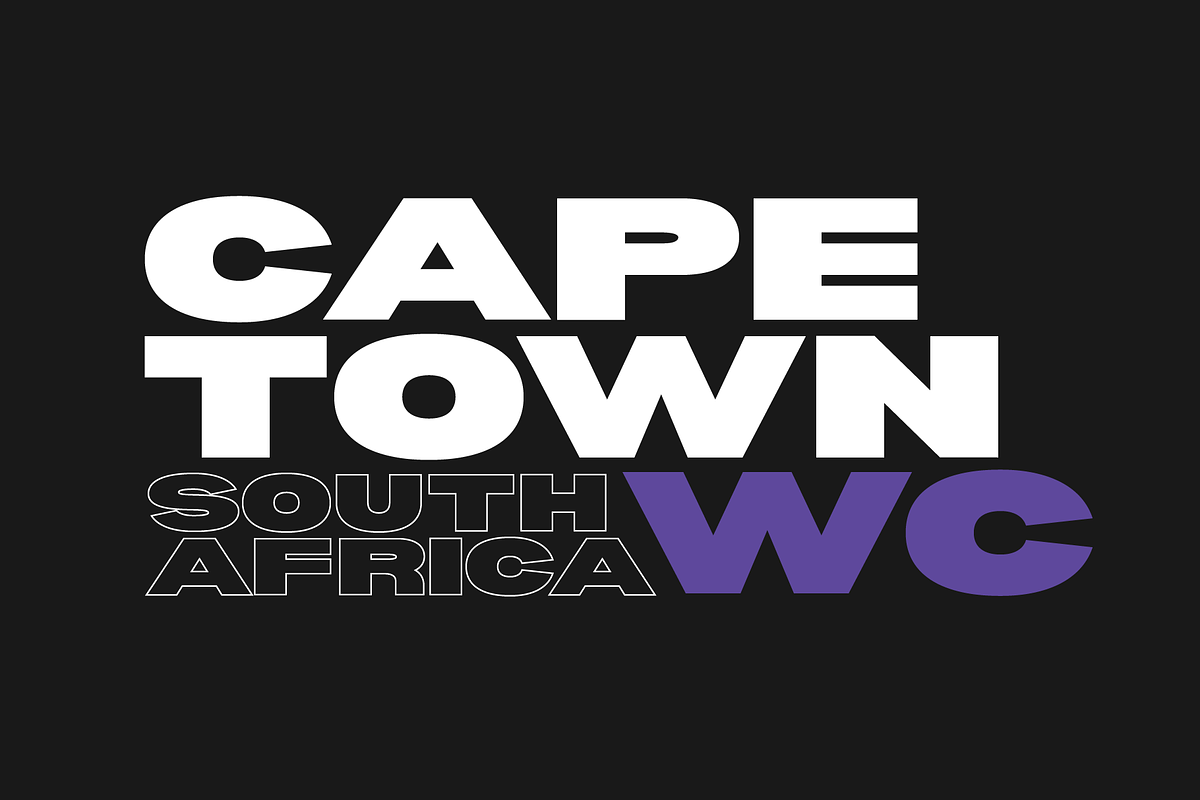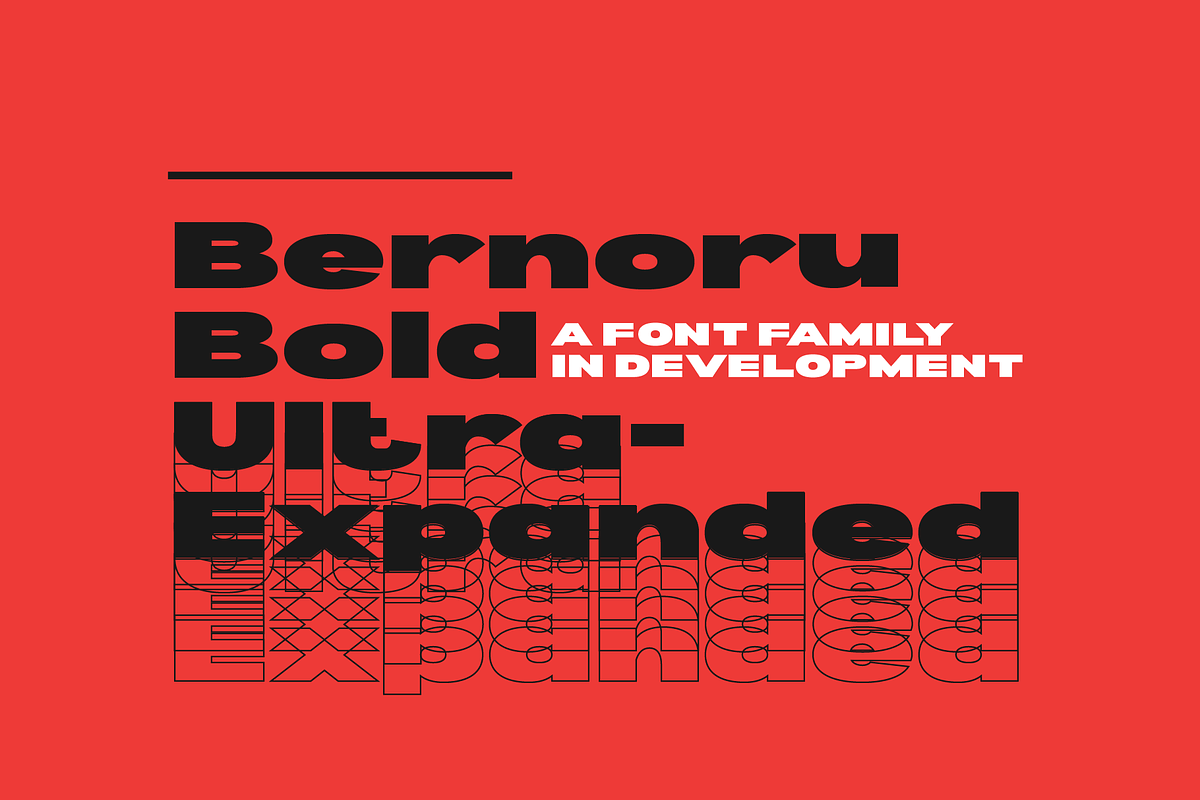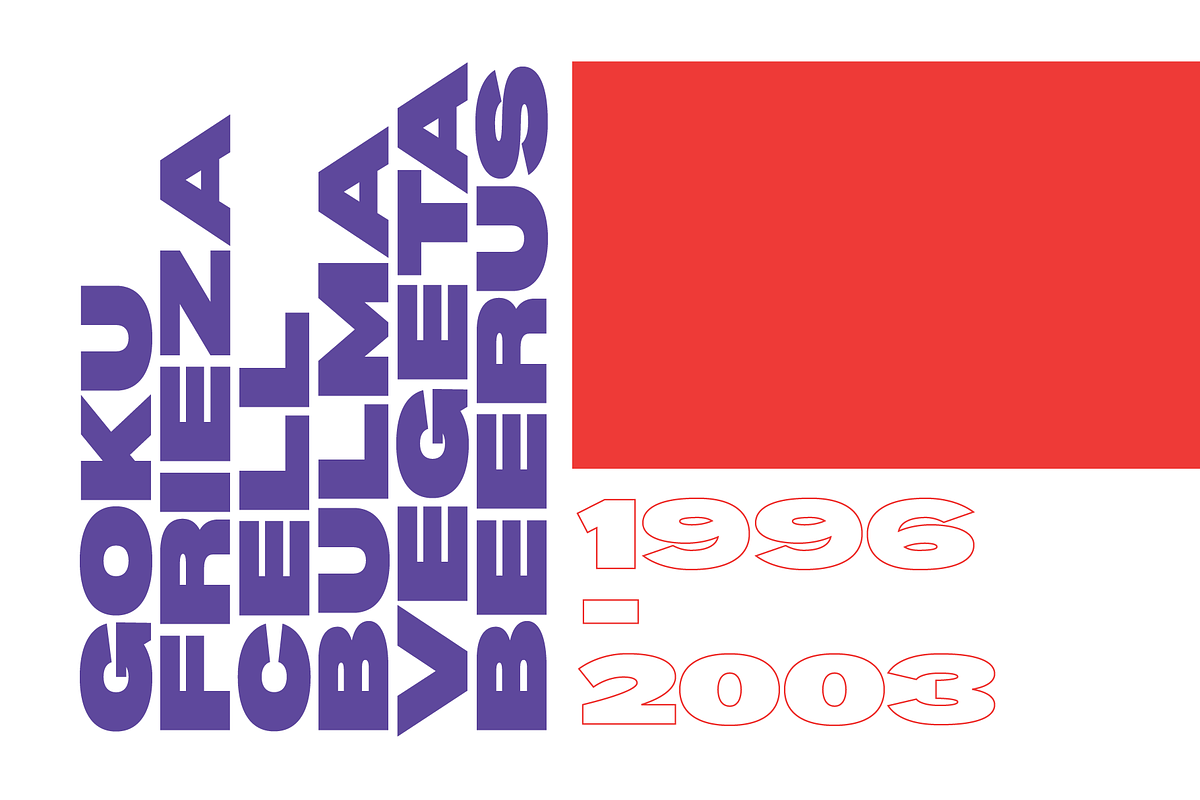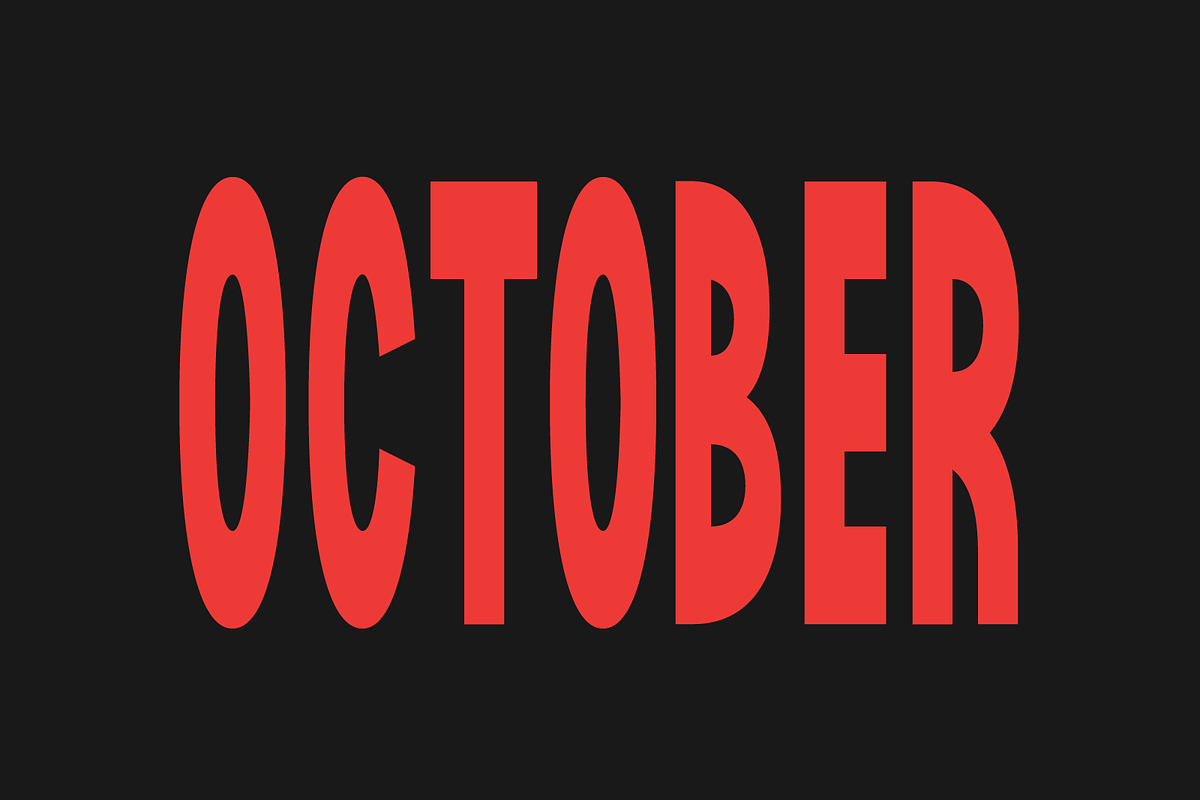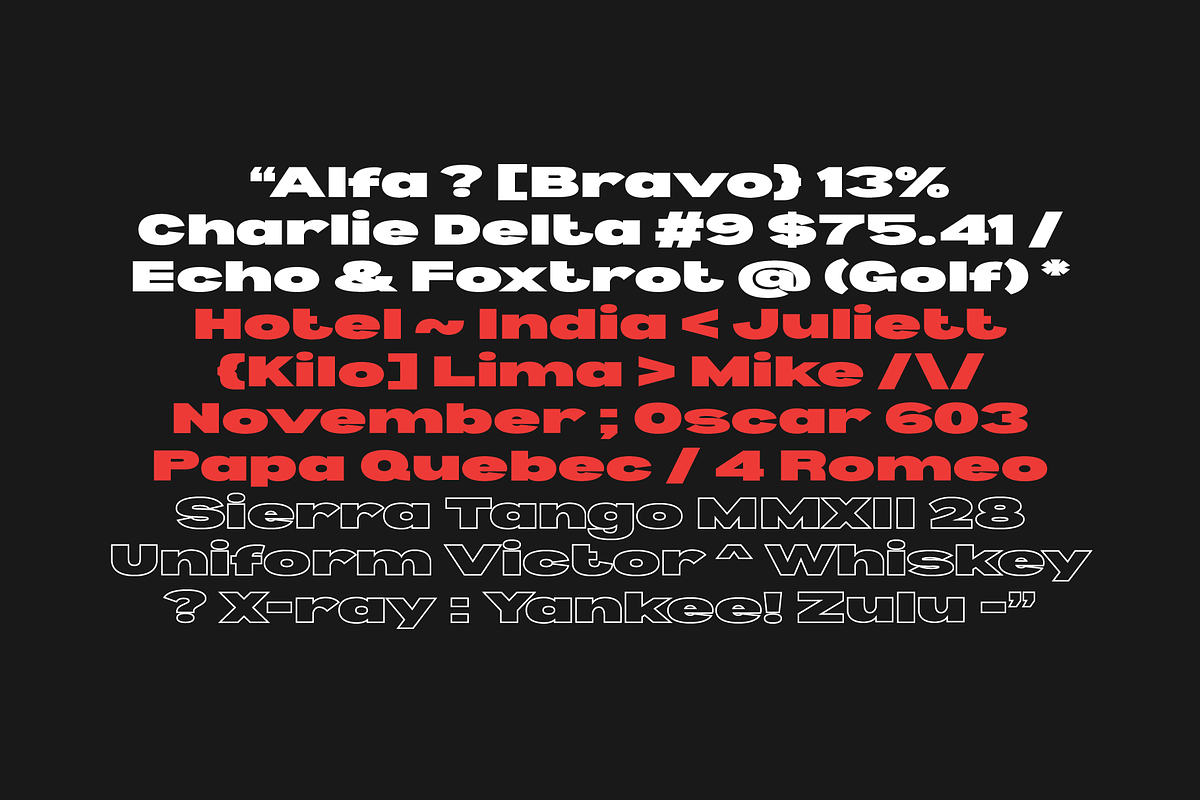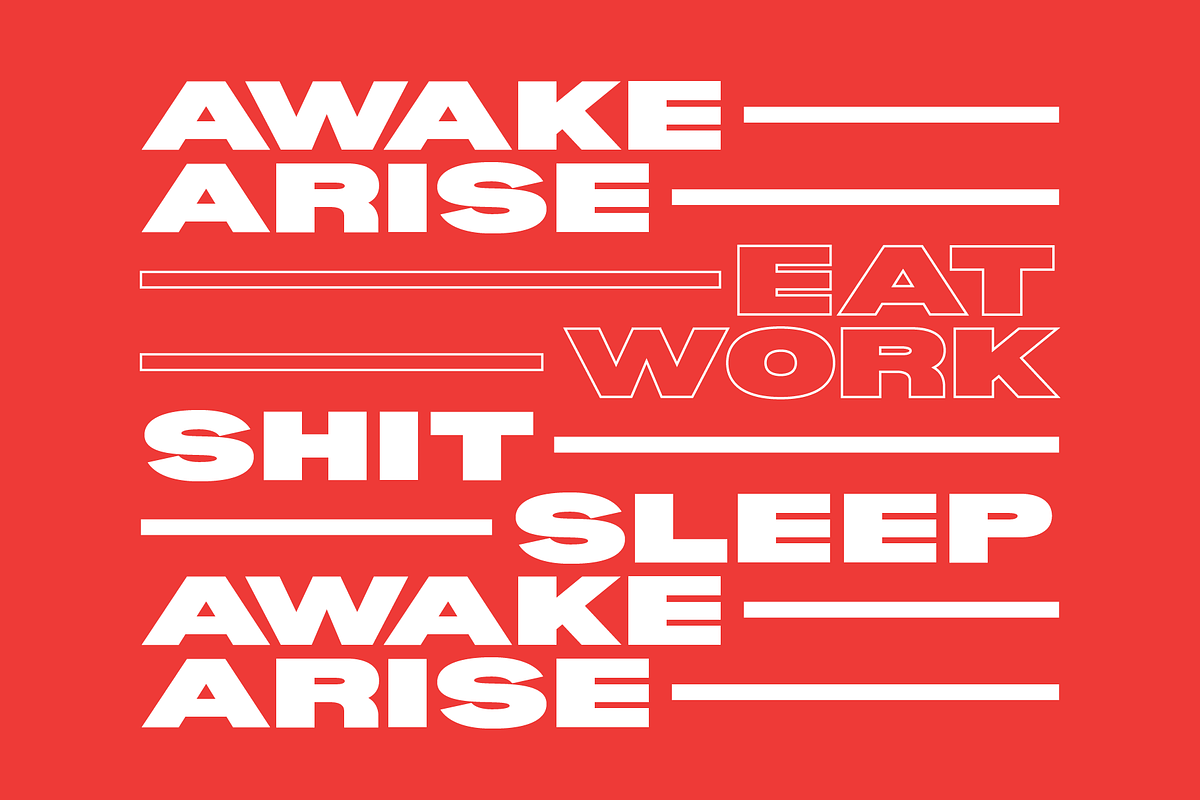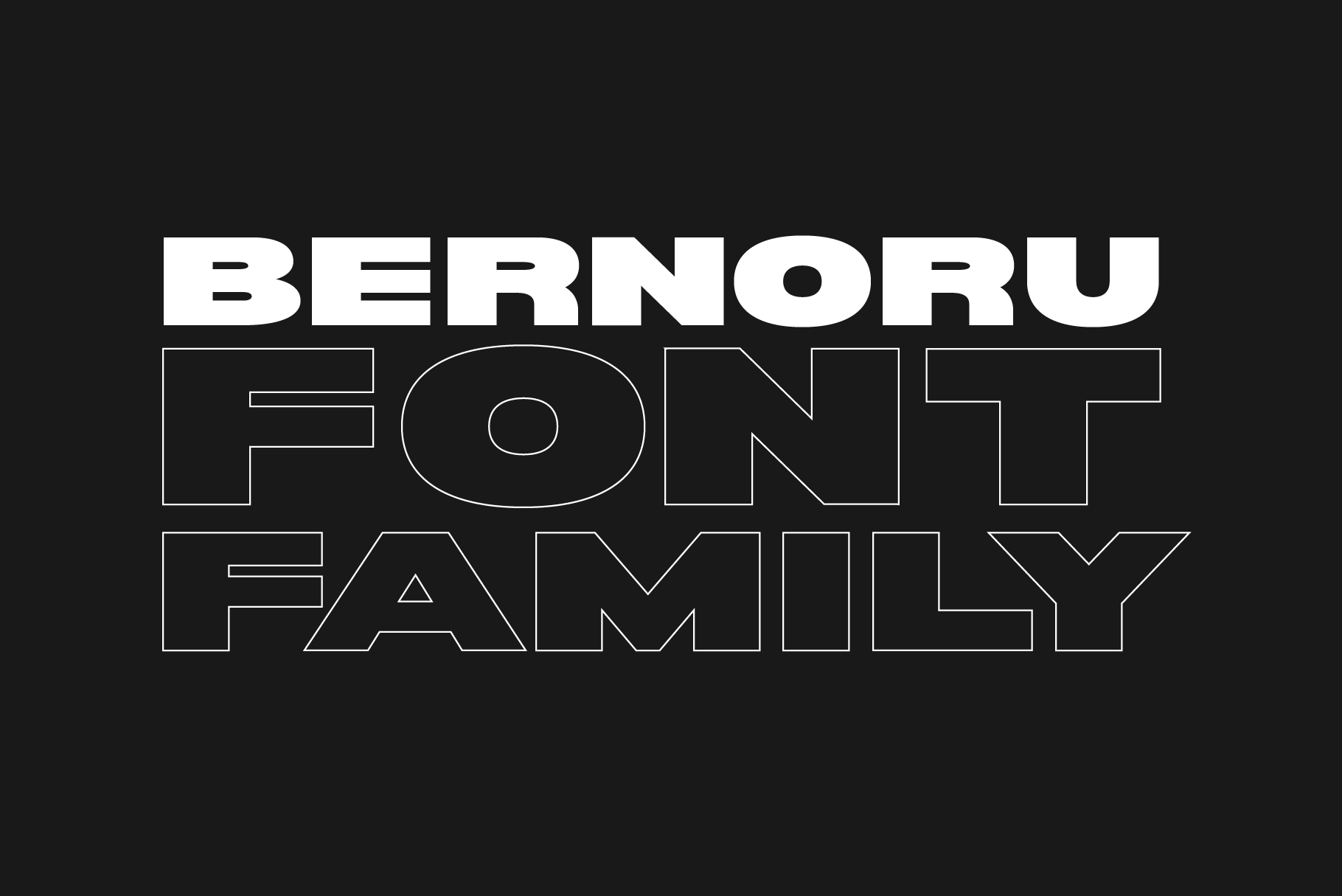
Bernoru Sans Font Family
Bernoru Sans is a bold, eye catching display typeface perfect for posters, headlines and branding. The font is currently being developed with more weight and features to be added. Currently 6 widths, see roadmap below for future features to come.
v0.108 Features
- Now including Latin characters (ÁÂÄÀÅÃÇÉÊËÈÍÎÏÌÑÓÔÖÒÕÚÛÜÙẂŴẄẀÝŶŸỲáâäàåãçéêëèíîïìñóôöòõúûüùẃŵẅẁýŷÿỳ)
v0.106 Features
- 6 Weight (Bold Ultra Expanded, Medium, Semi Condensed, Ultra Condensed)
- 2000+ Kerning Pairs
- 116 Glyphs (Uppercase, Lowercase, Numbers, Punctuation and Symbols)
v0.100 Features
- 1 Weight (Bold Ultra Expanded)
- 1683 Kerning Pairs
- 116 Glyphs (Uppercase, Lowercase, Numbers, Punctuation and Symbols)
Roadmap of planned features
- Diacritics/Multi Language Support
- Italics of existing weights
- New Weight Thin Ultra Expanded (and all weights in between)
- New Weight Thin Ultra Condensed (and all weights in between)